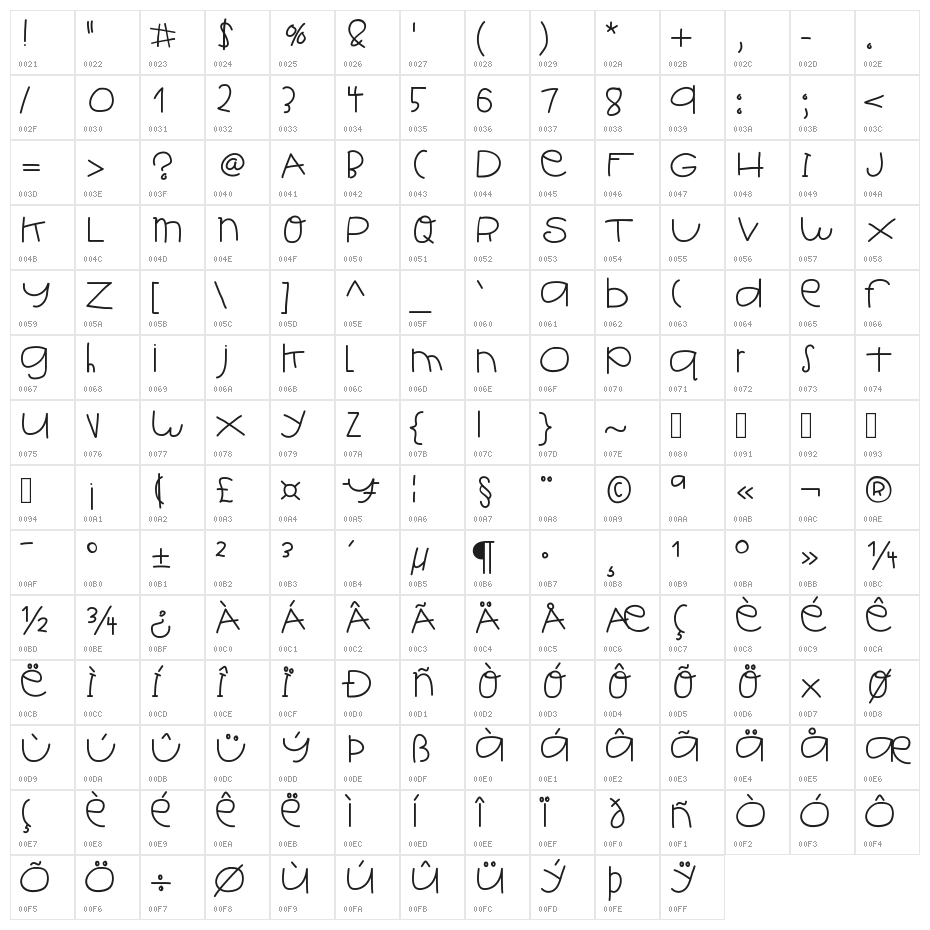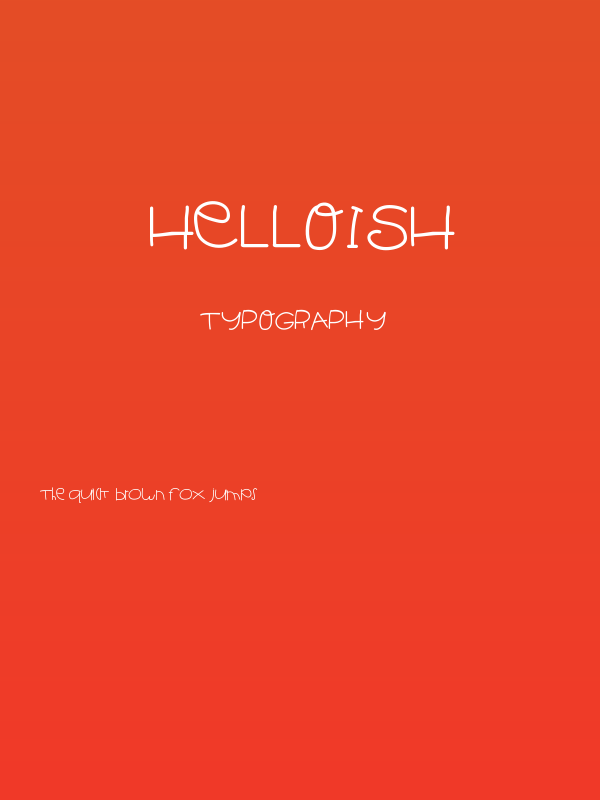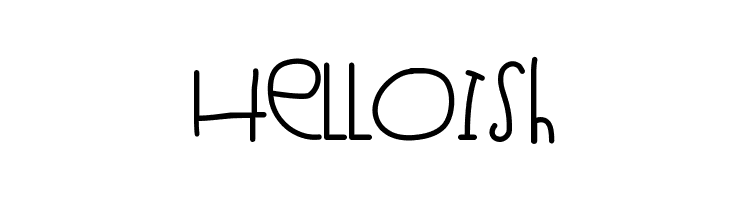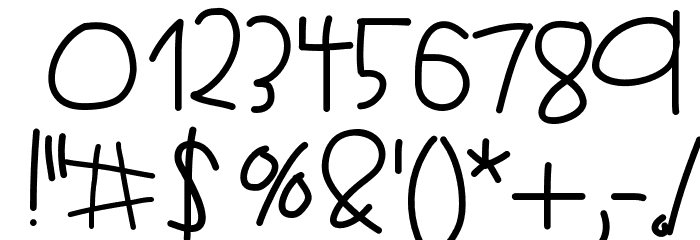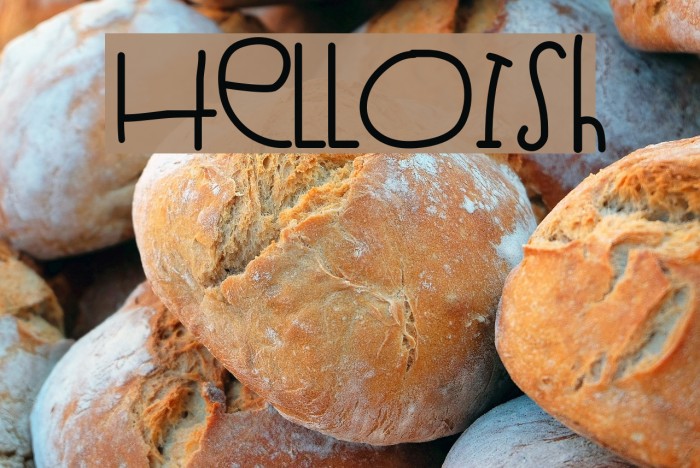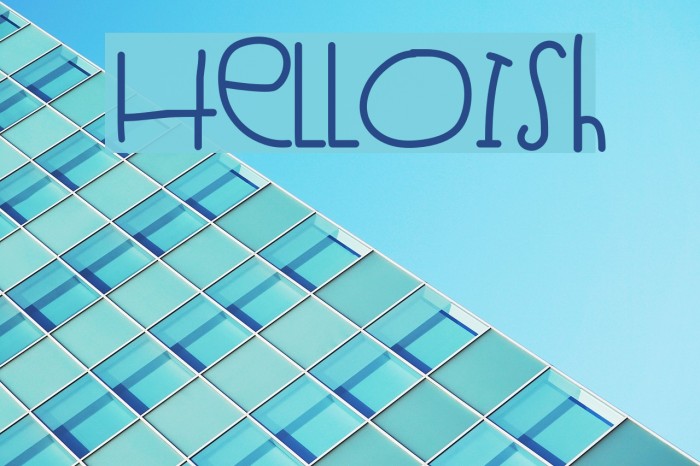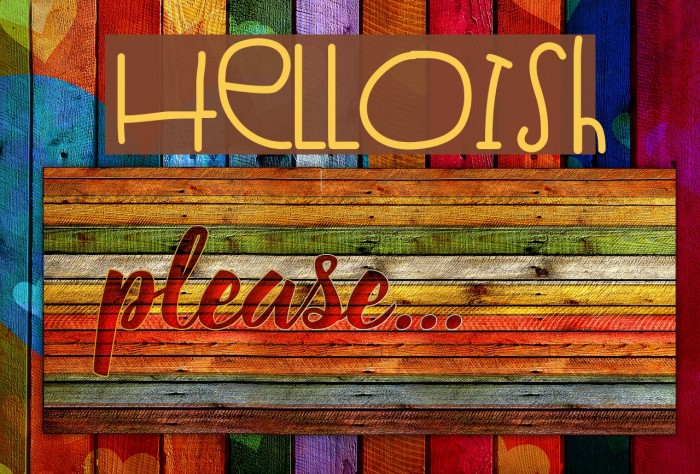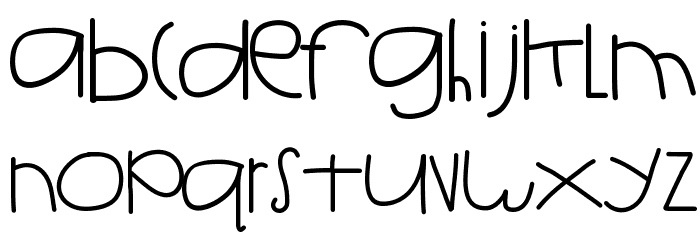
HelloIsh Font
HelloIsh Description
This playful and whimsical font features a handwritten style with a casual and friendly appearance. The characters are slightly irregular, adding a touch of personality and charm. The strokes are smooth and rounded, giving the font a soft and approachable feel. The uppercase and lowercase letters maintain a consistent style, with a slight slant that adds to the informal look. The numbers and special characters follow the same playful design, making the font versatile for various uses. Its unique style makes it suitable for creative projects that require a personal touch.
| Proposed Projects | Ideal for children's books, greeting cards, playful branding, and creative invitations. |